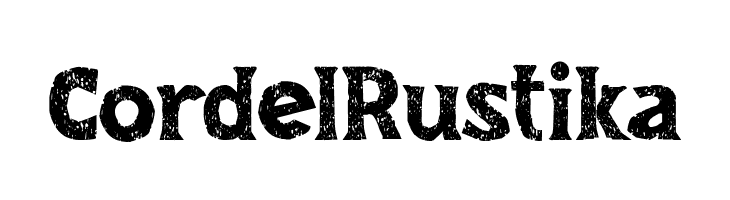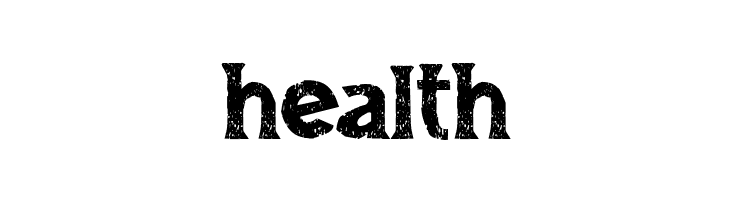
A bold, textured decorative font with a vintage, handcrafted feel.
A bold, hand-drawn font with a rustic and organic feel.
A rustic, textured font with a handcrafted, vintage feel.